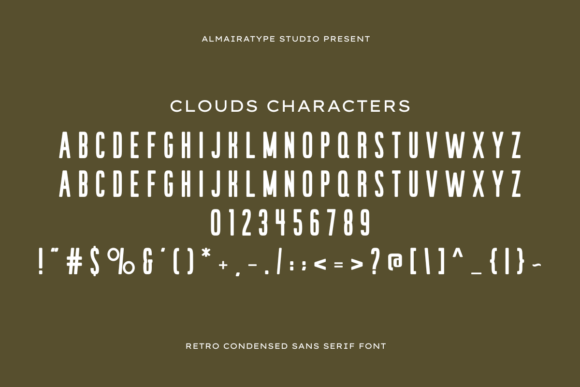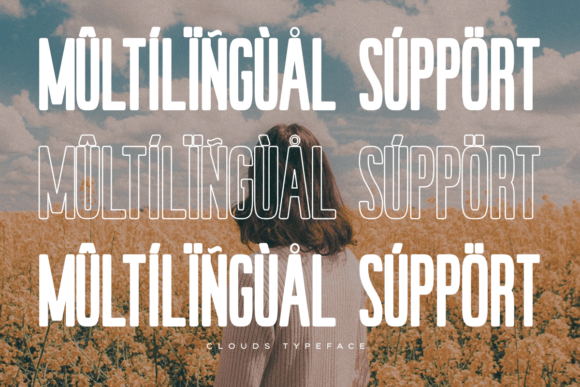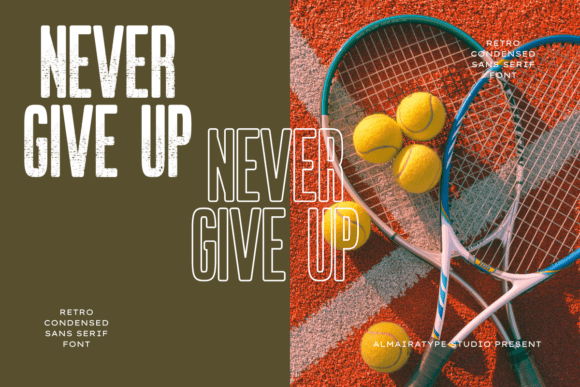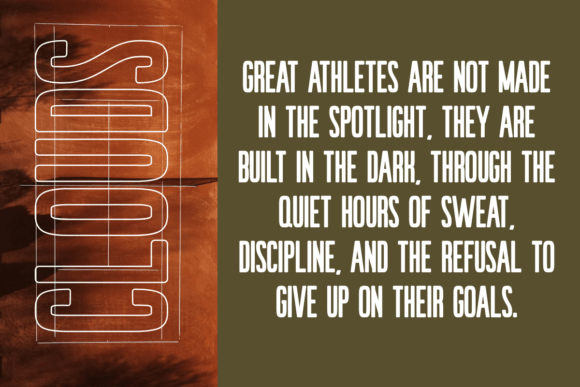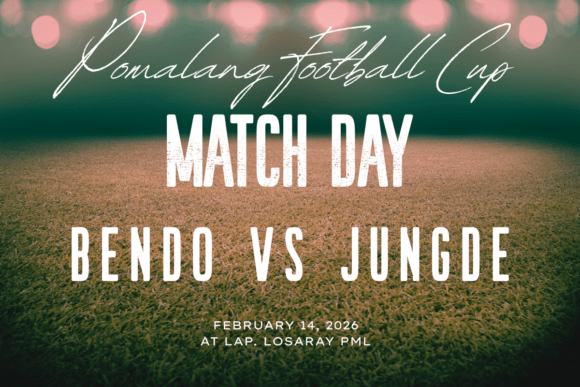
Discover the Timeless Charm of Clouds Font
I’ll never forget the design project that led me to discover Clouds Font. I was working on a retro-themed movie poster for a friend’s indie film, and I was struggling to find the perfect font. The client wanted something that captured the essence of the 70s and 80s, but also felt modern and sleek. After hours of scouring font libraries and design forums, I stumbled upon Clouds Font – and it was love at first sight! ✨
A Bold and Versatile Typeface
Clouds Font is a bold and versatile Retro Condensed Sans Serif font that effortlessly blends vintage nostalgia with modern minimalism. Its tall, clean structure commands attention while maintaining a sleek and professional elegance. This typeface is perfect for designers looking to add a touch of timeless character to headlines, movie posters, magazine editorial layouts, and brand identities.
Honest Review: The Good and the Great
Here’s what I love about Clouds Font:
- ✅ Unique and stylish flair: Clouds Font has a distinct personality that sets it apart from other fonts.
- ✅ Excellent readability: The font is clear and legible, even at small sizes.
- ✅ Soft, rounded edges: The font’s subtle rounded edges give it a warm, approachable feel.
- ✨ OpenType features: Clouds Font comes with a range of OpenType features, including stylistic alternates and glyphs.
And here are a few small quirks to keep in mind:
- ⚠️ Limited use in body text: Due to its bold and condensed nature, Clouds Font may not be the best choice for body text.
- 🤔 Kerning issues: As with any font, you may need to adjust kerning to achieve optimal results.
The Story Behind Clouds Font
Clouds Font was designed by a team of typographers who wanted to create a font that captured the essence of retro typography while still feeling modern and sleek. Inspired by classic 70s and 80s fonts, they created a font that is both nostalgic and timeless.
| Font Name | Clouds Font |
| Author | Almairatype Studio |
| What is Clouds Font? | Clouds Font is a bold and versatile Retro Condensed Sans Serif font. |
| What is Clouds Font best used for? | Clouds Font is perfect for headlines, movie posters, magazine editorial layouts, and brand identities. |
| Can I use Clouds Font for body text? | While Clouds Font can be used for body text, it may not be the best choice due to its bold and condensed nature. |
| Does Clouds Font come with OpenType features? | Yes, Clouds Font comes with a range of OpenType features, including stylistic alternates and glyphs. |